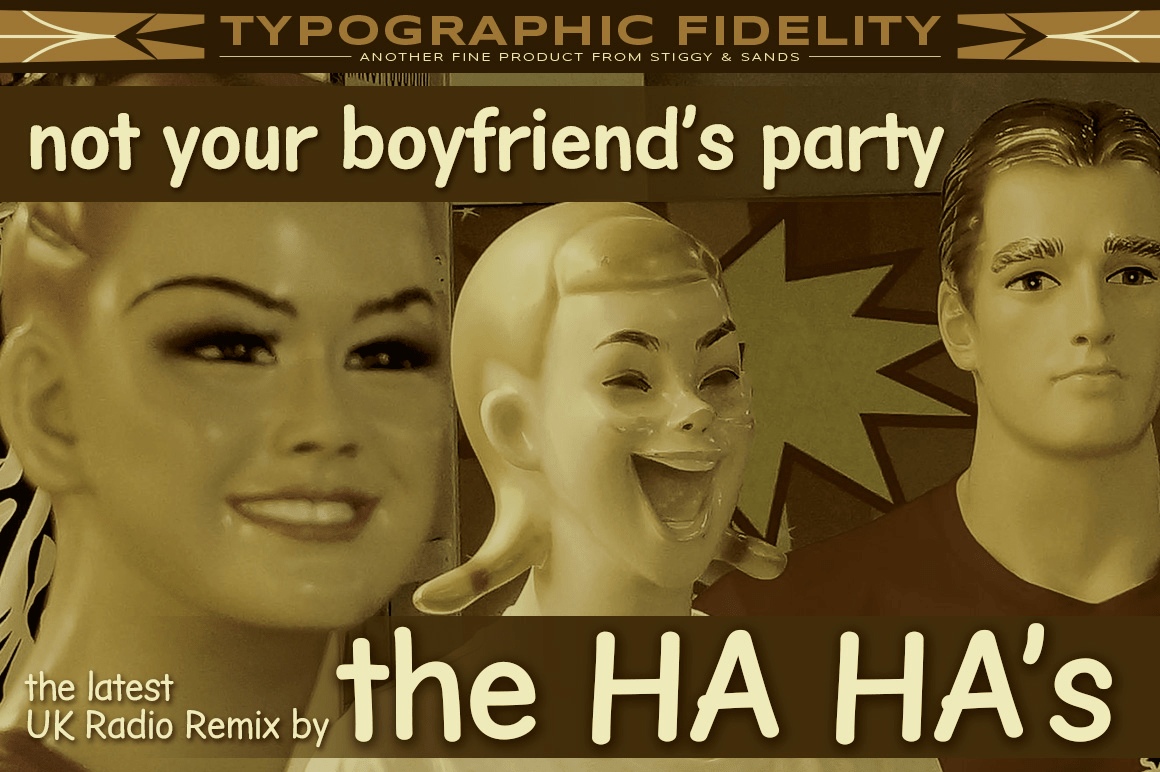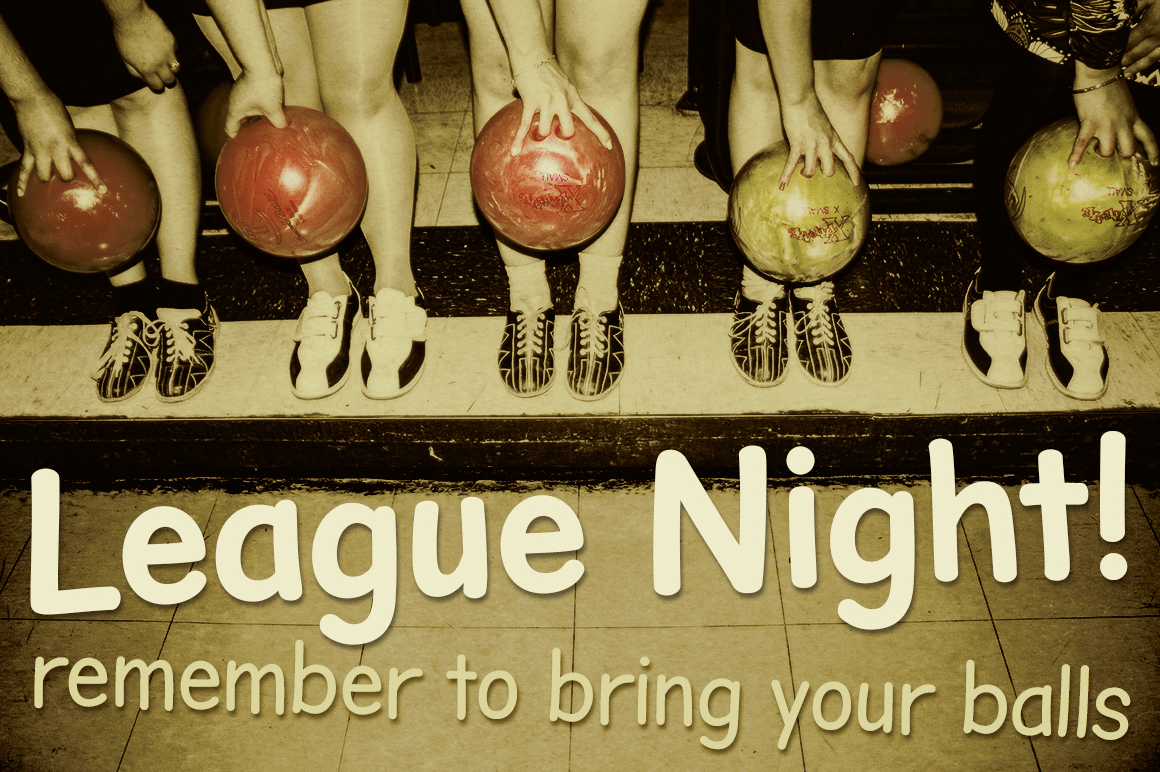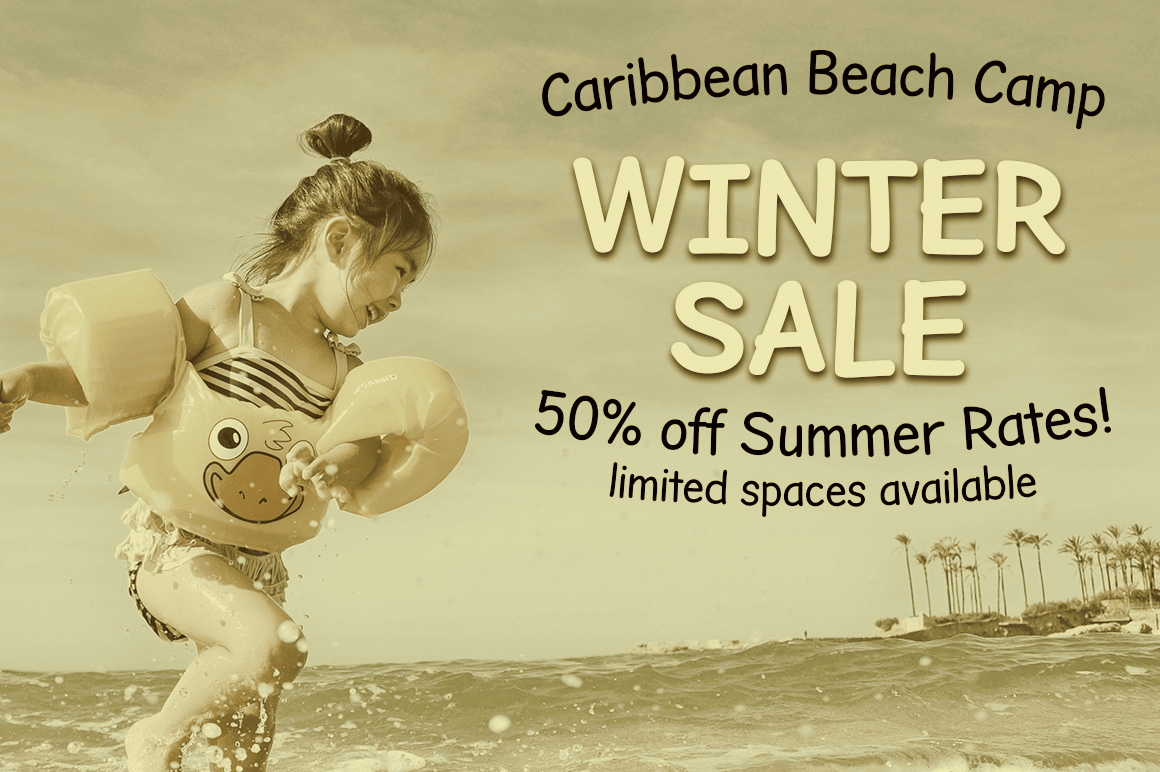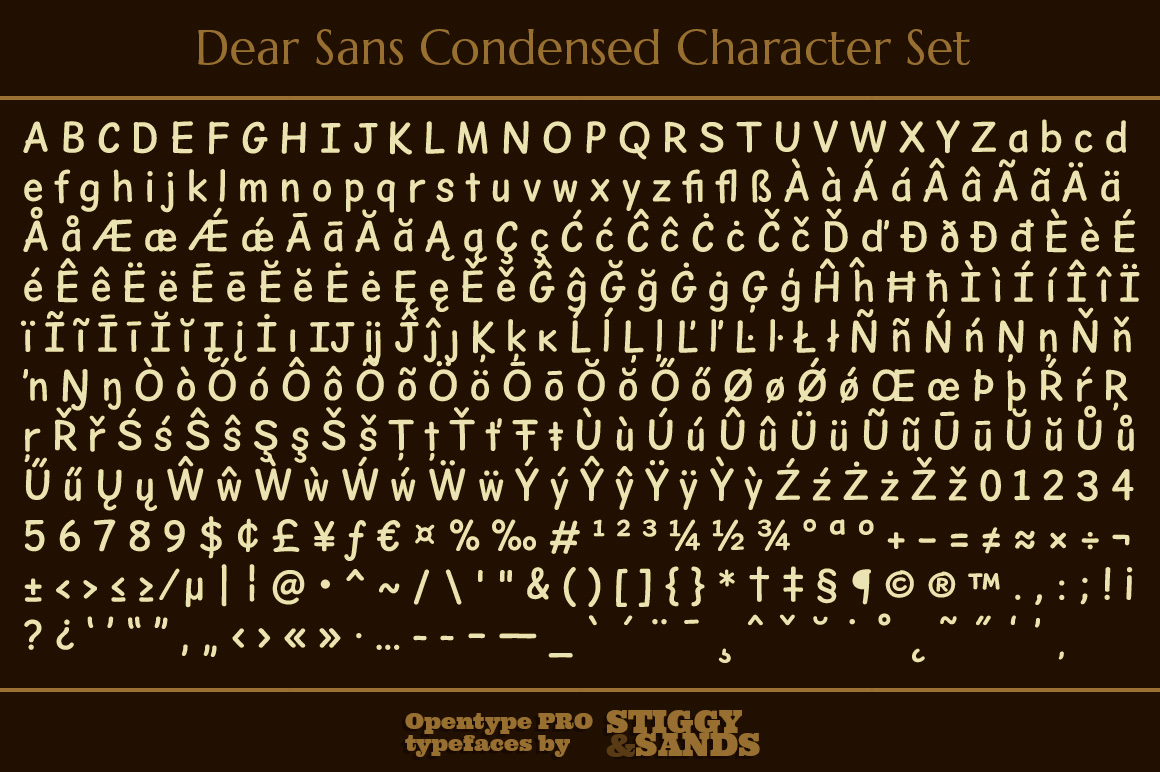
About Dear Sans Condensed
A Compact Width Casual Handdrawn Sans The Dear Sans Condensed Family is a three font family of condensed weights: Book, Regular & Bold. It is a display family with a narrower width, but all the personality intact. Cleanly readable, with just a slight…